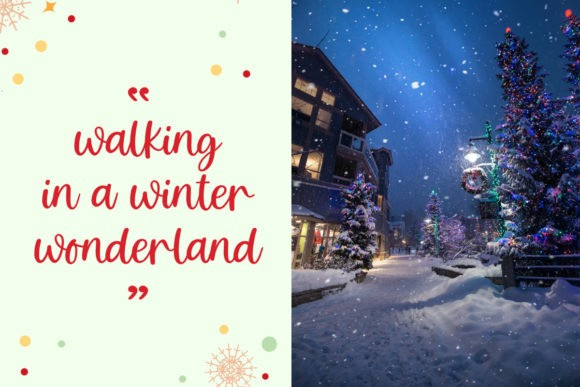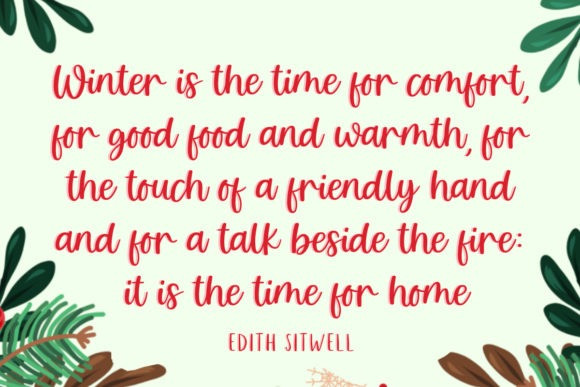
Calyana Script Font
I will introduce my newest product “Calyana” This font is very modern, and is perfect for your design … This font is suitable for business cards, logos, covers, comics, invitations, etc.